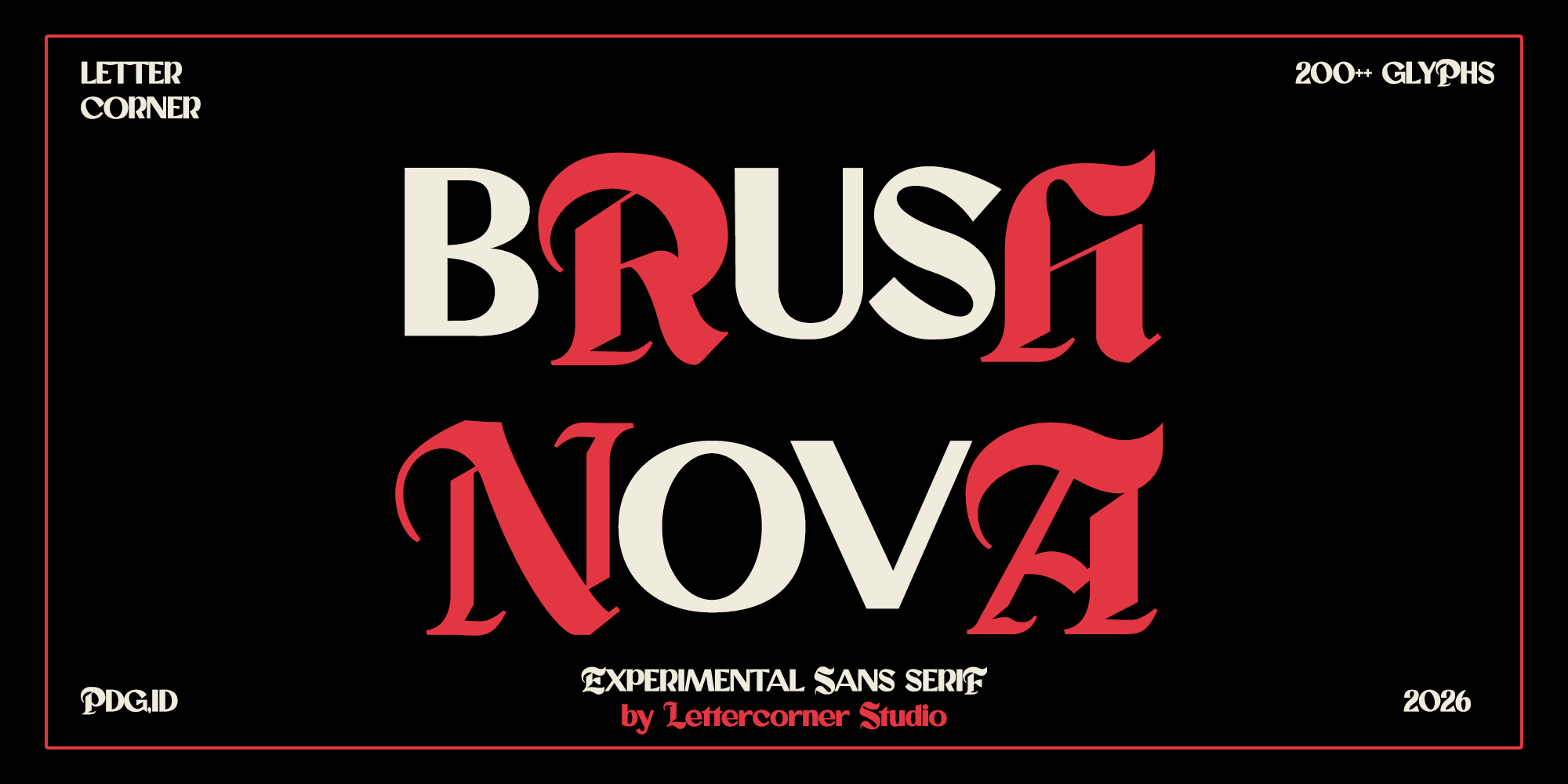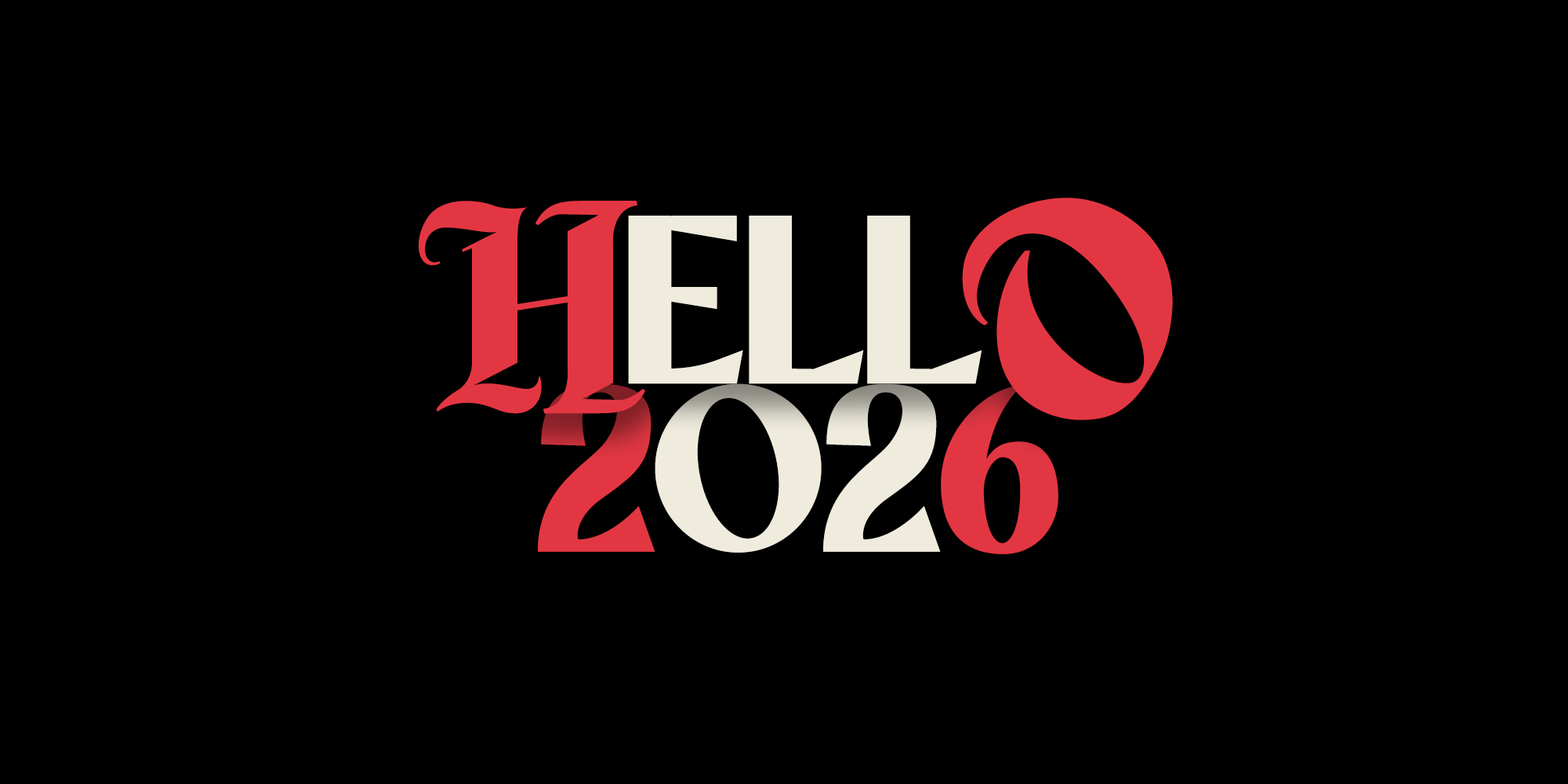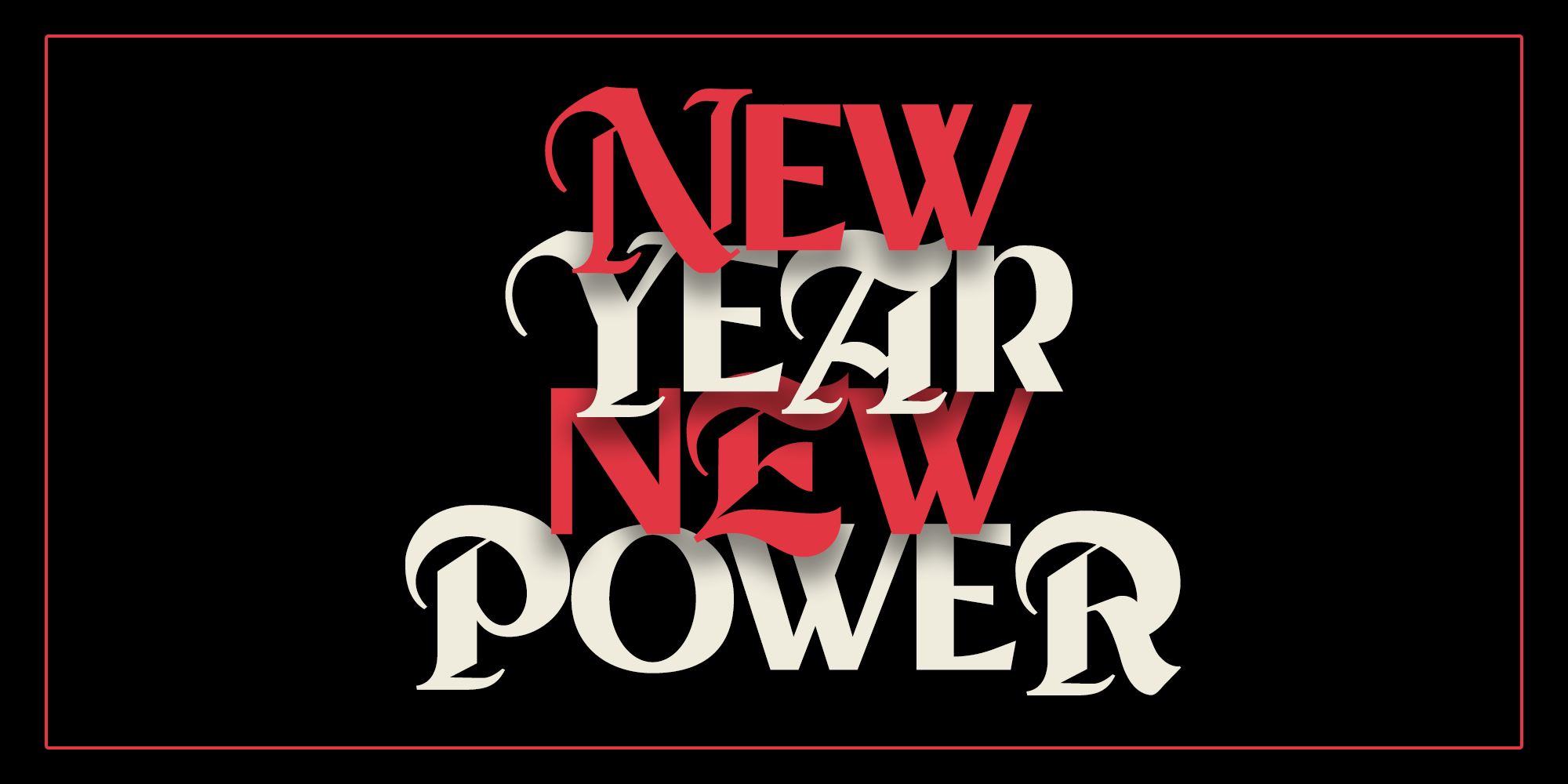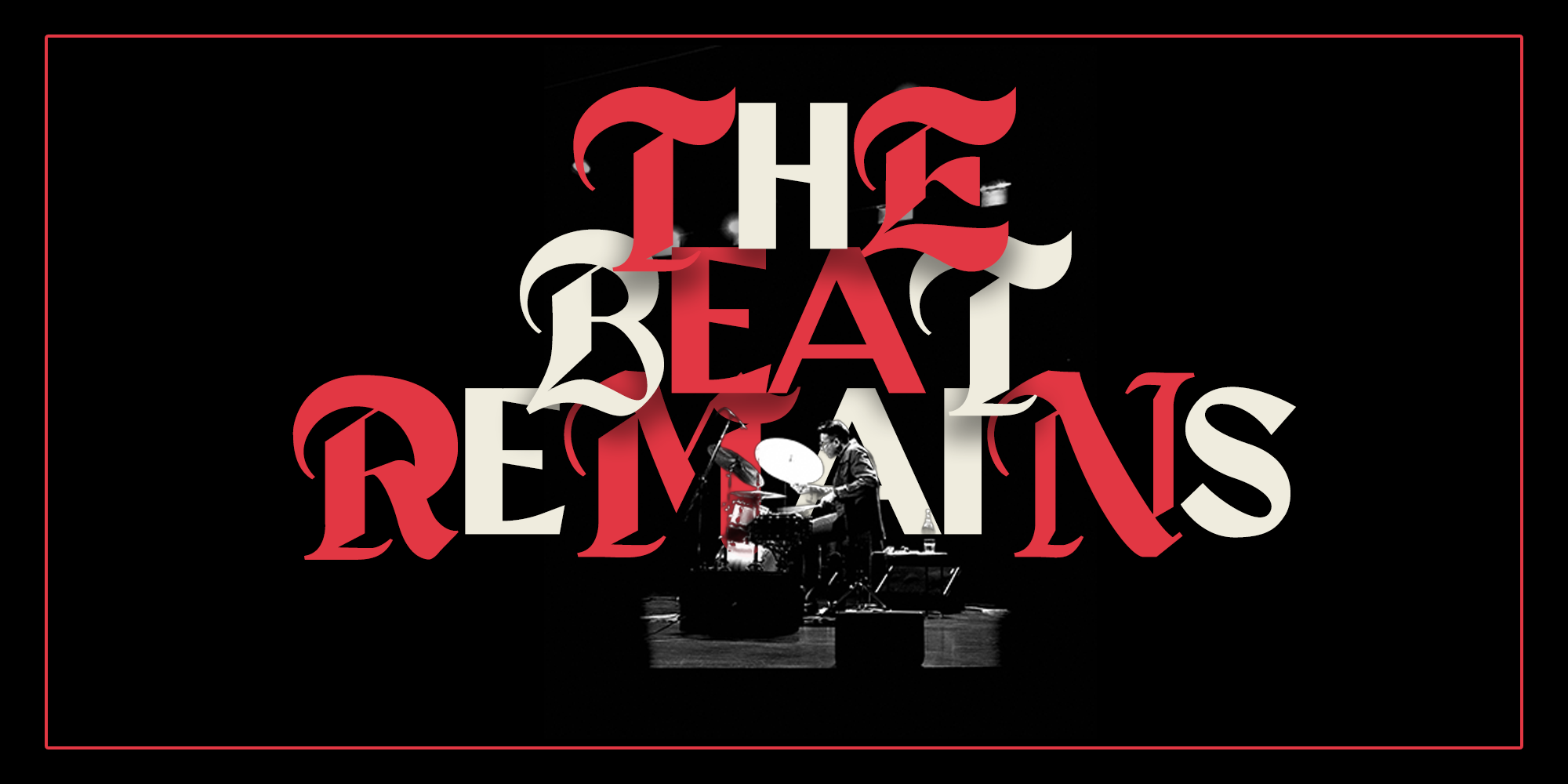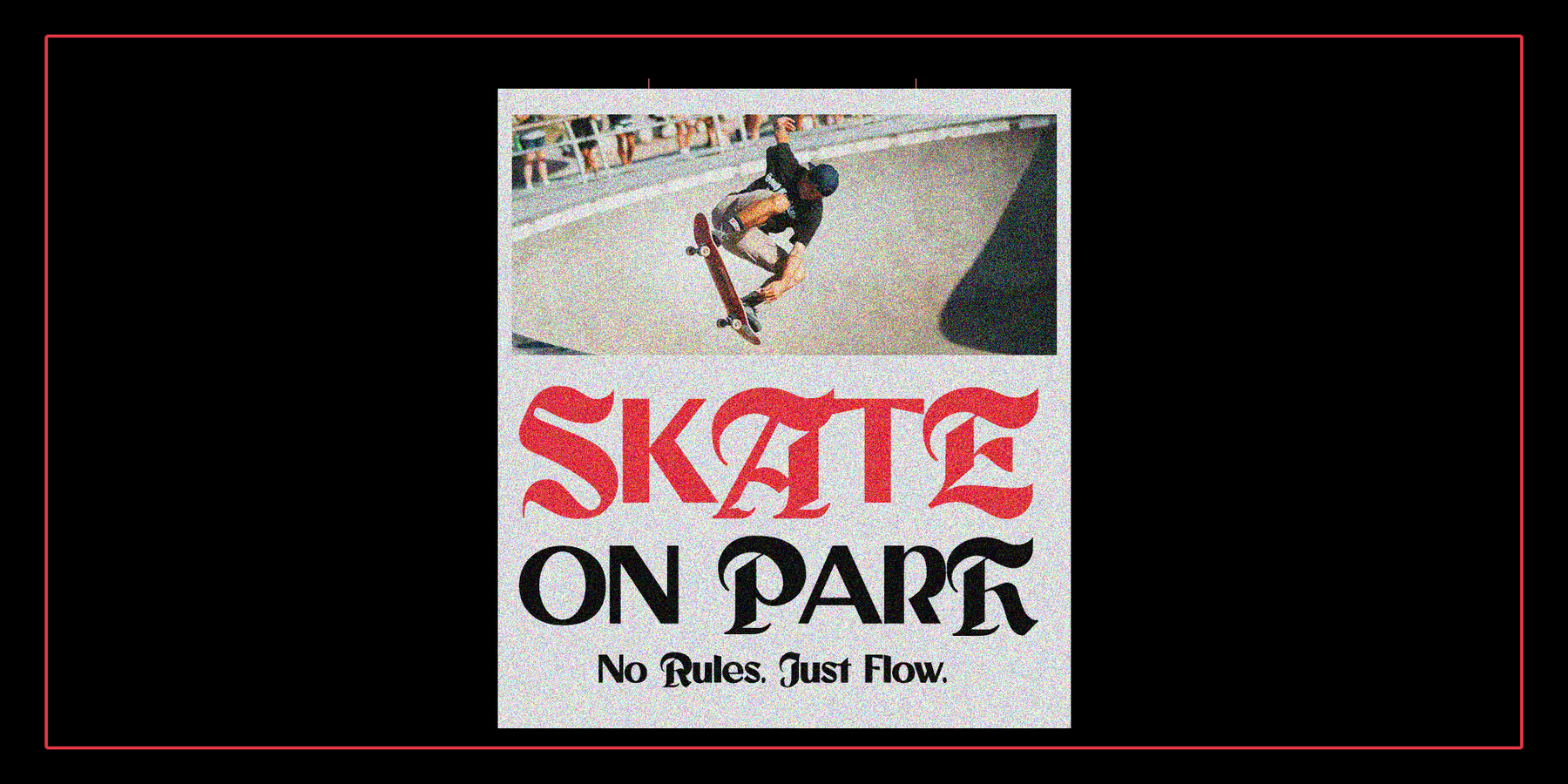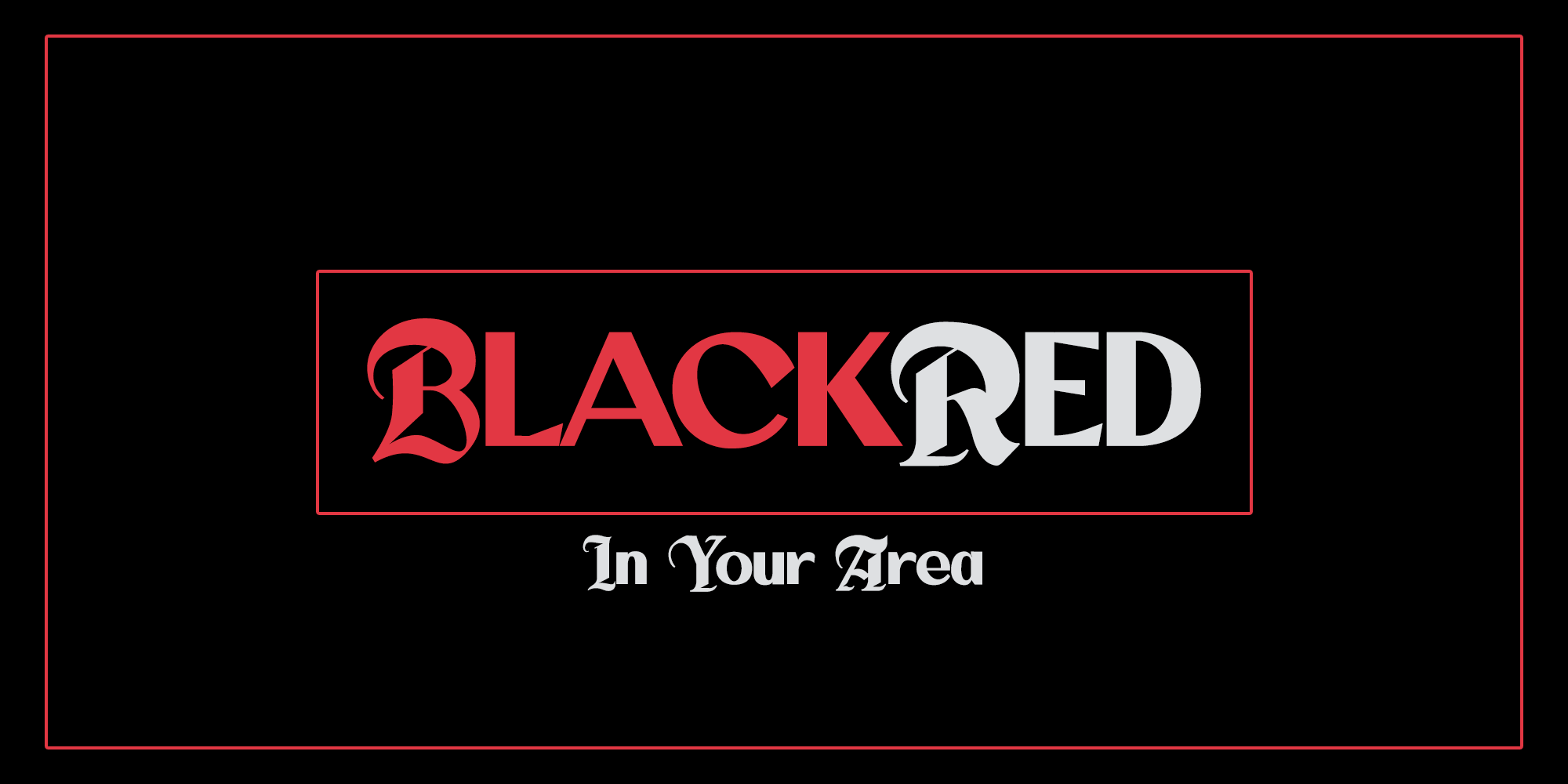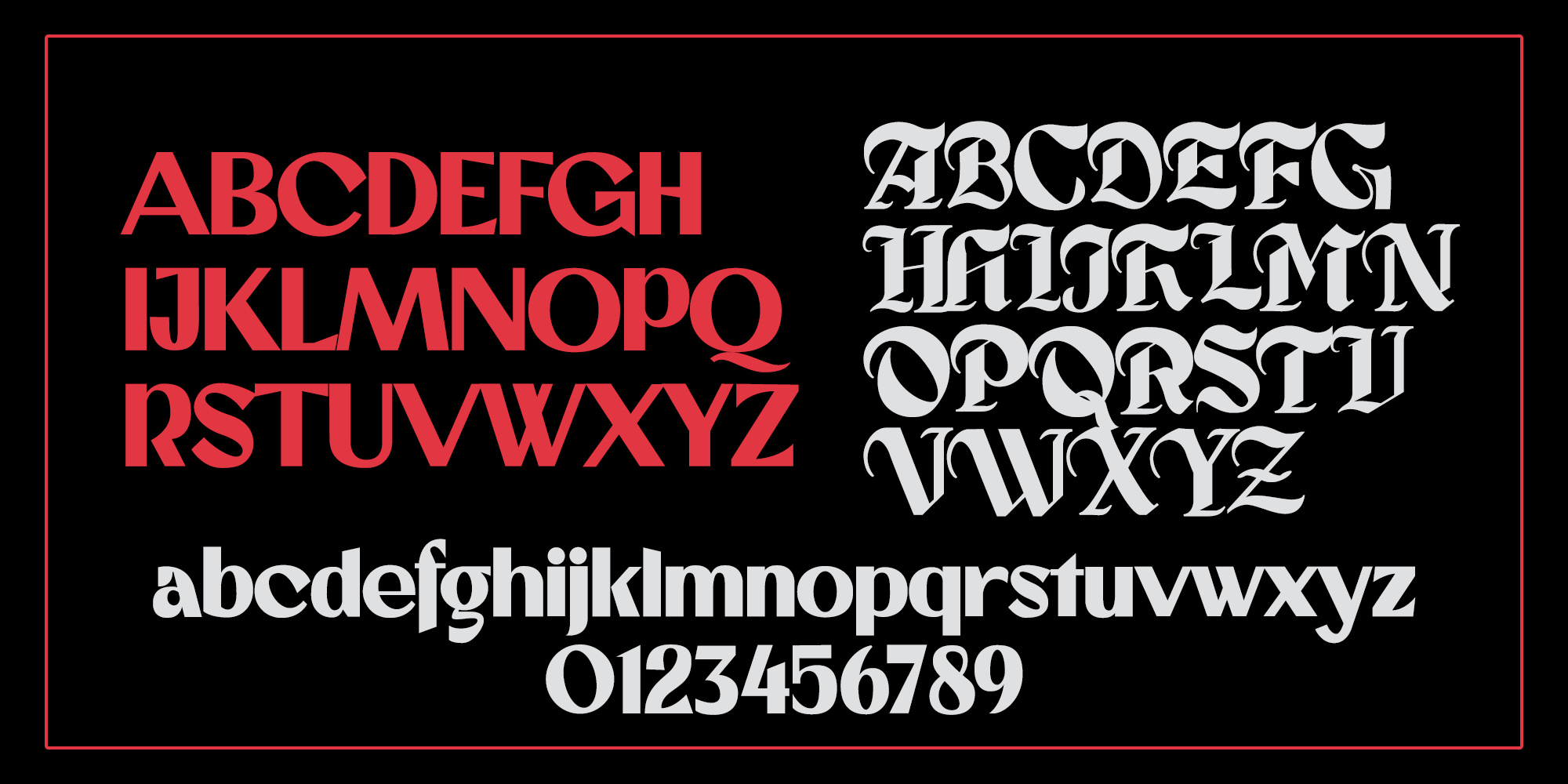
BRUSH NOVA – Experimental Display Serif created by Lettercorner Studio BRUSH NOVA is an experimental display serif typeface that blends classic serif elegance with a bold, contemporary attitude. Designed with strong contrast and expressive letterforms, BRUSH NOVA delivers a distinctive visual presence that feels both timeless and modern. The character of BRUSH NOVA is defined by its sharp serifs, dynamic curves, and confident proportions, making it ideal for impactful headlines and statement-driven designs. Its unique structure allows designers to create compositions that feel dramatic, artistic, and unapologetically bold. With over 200+ glyphs, BRUSH NOVA includes uppercase and lowercase characters, numerals, punctuation, and stylistic details that support versatile typographic exploration across different creative projects.